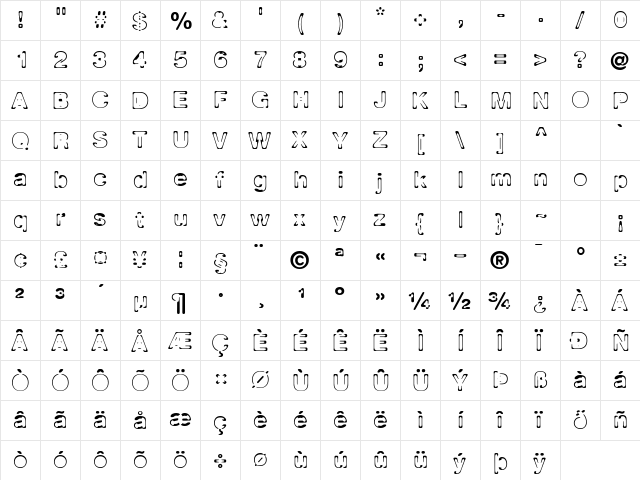
PlanetOrbit Regular
Design Context for PlanetOrbit Typeface
PlanetOrbit offers clean, dependable letterforms without strong stylistic allegiance, making it a practical choice for designers who need flexibility.
Pro Tip: Use PlanetOrbit in both headline and body roles to test its range before committing to a single application.